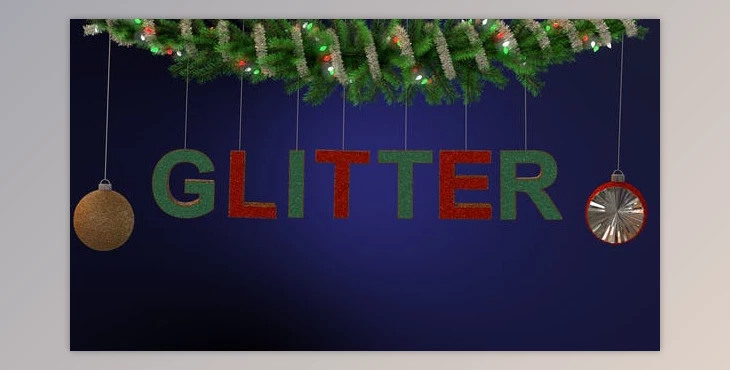
Glitter Ornament Text Typeface:
Glitter Ornament Typefaces are a set of glitter-covered letters, numbers, and symbols that fall from the top. They are held together by a string. You can choose from two different types of typefaces. All characters are 4K resolution and you can change the control layer to make them your own. The instruction video is available in the zip fly.